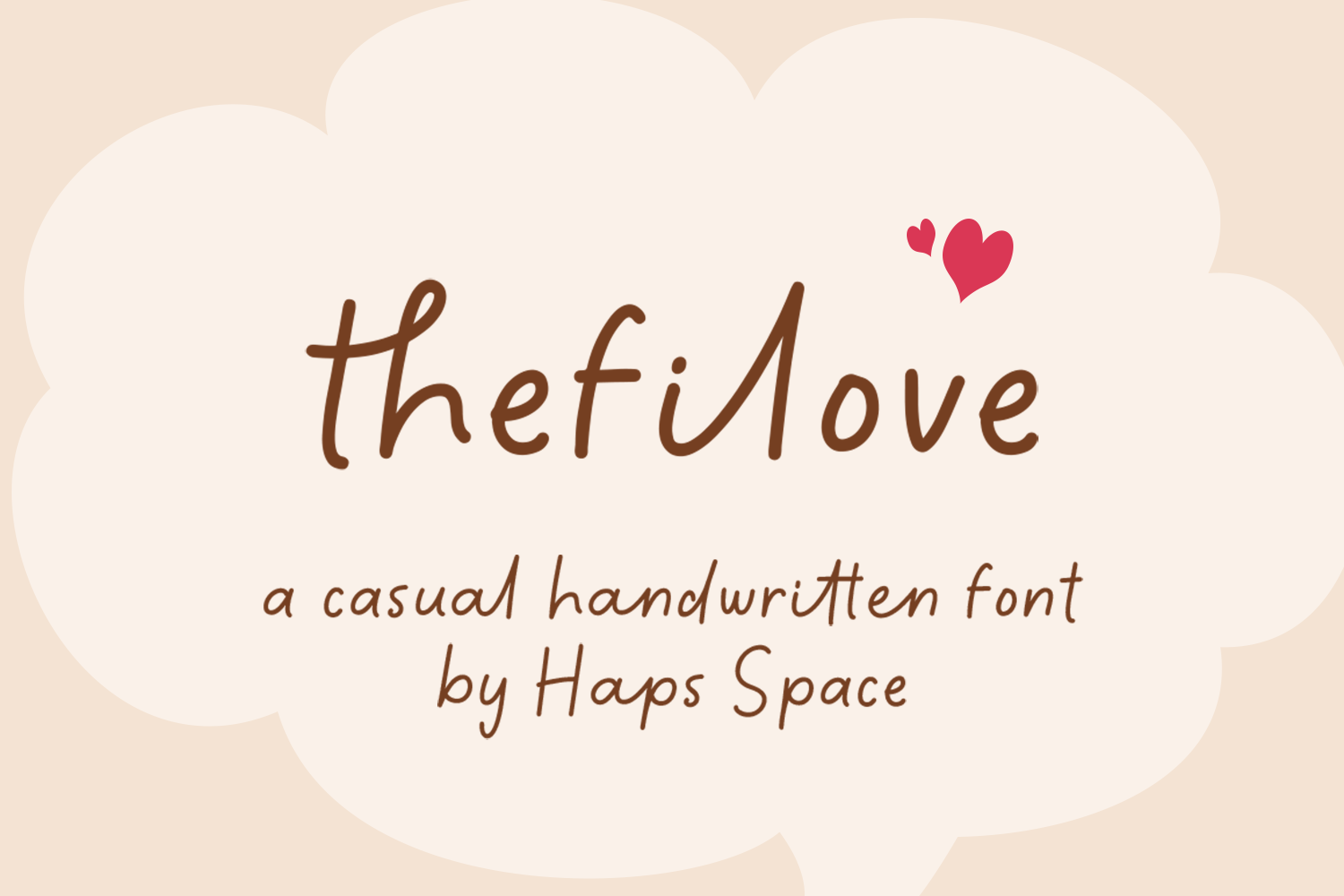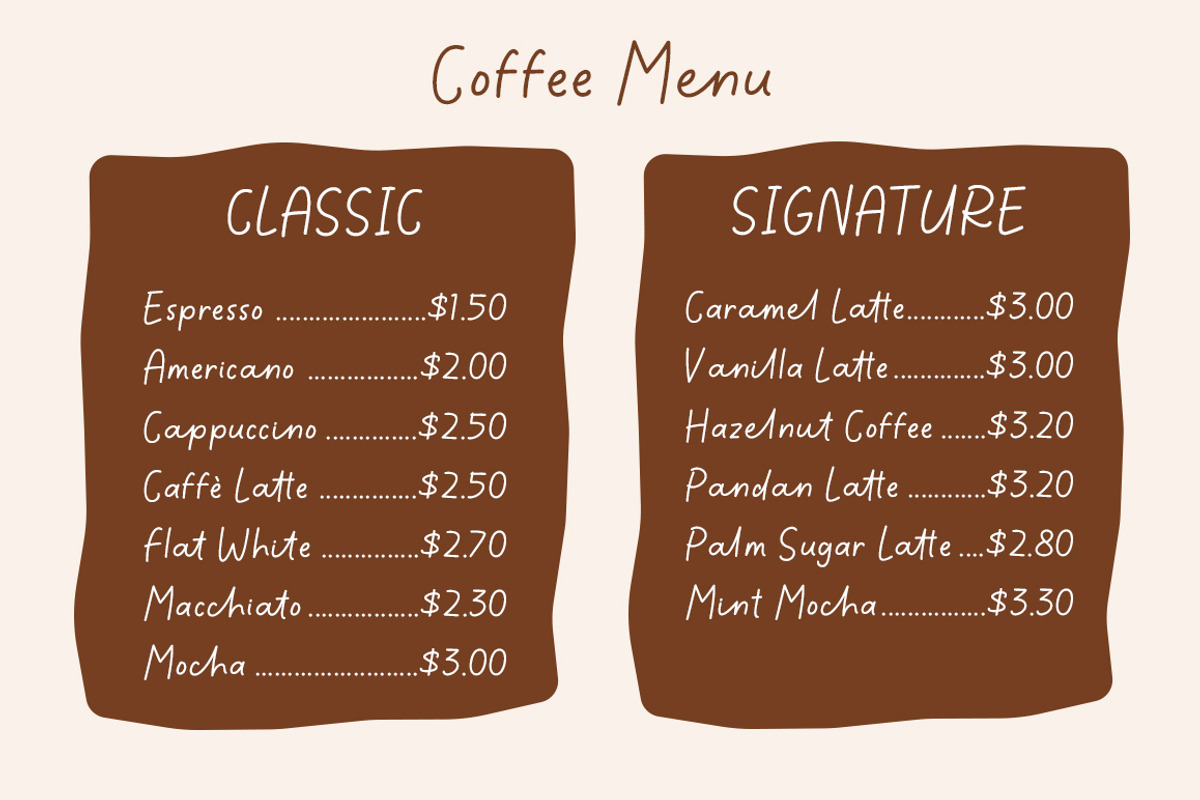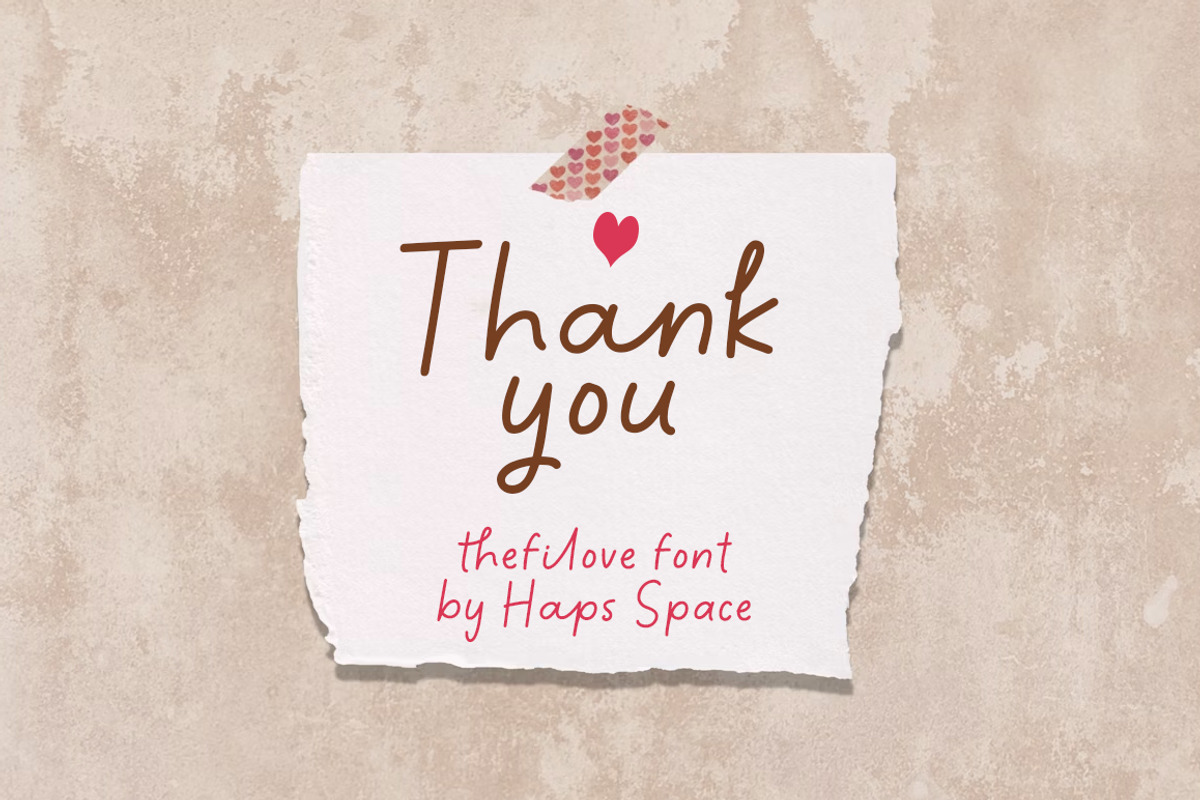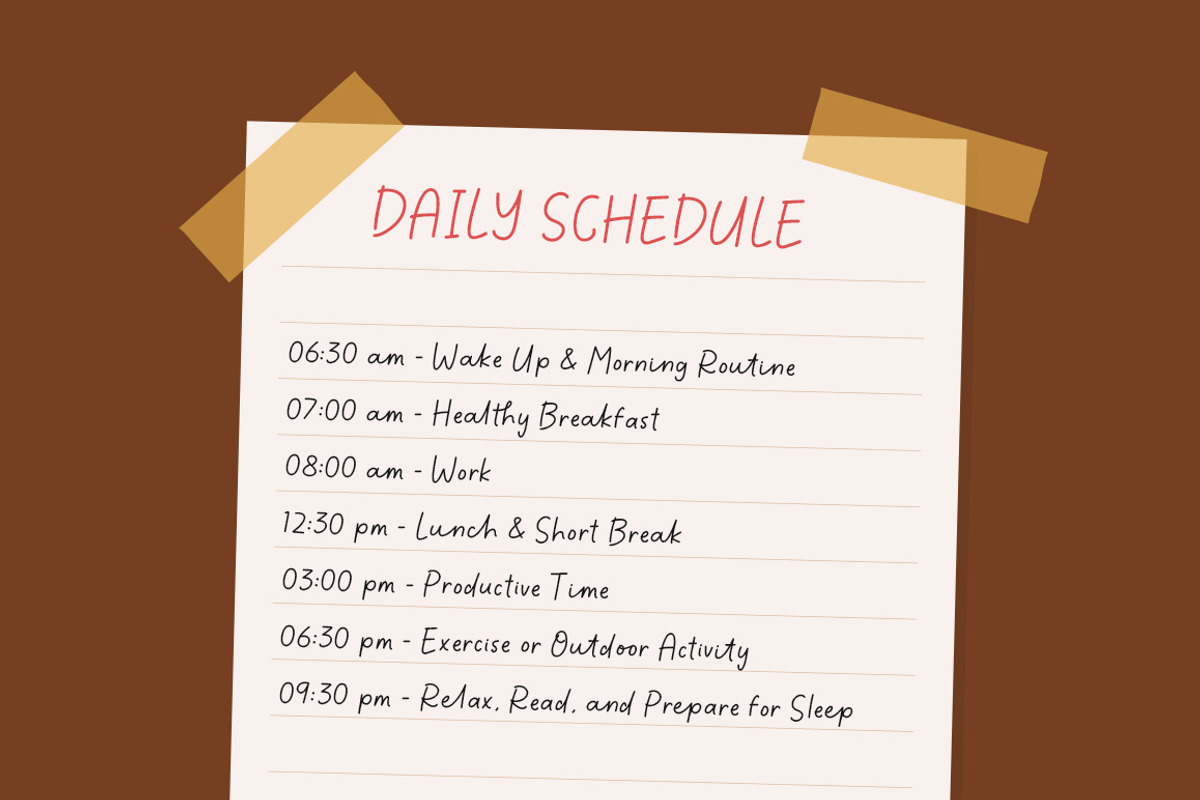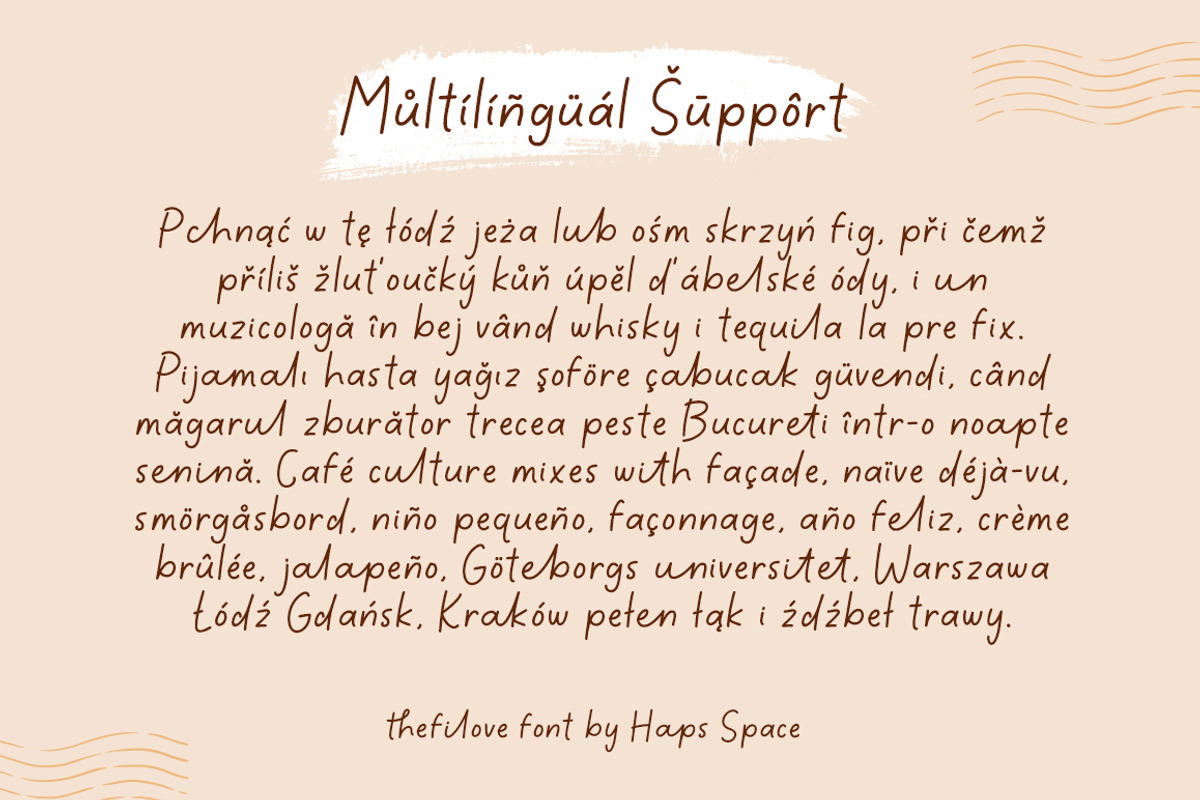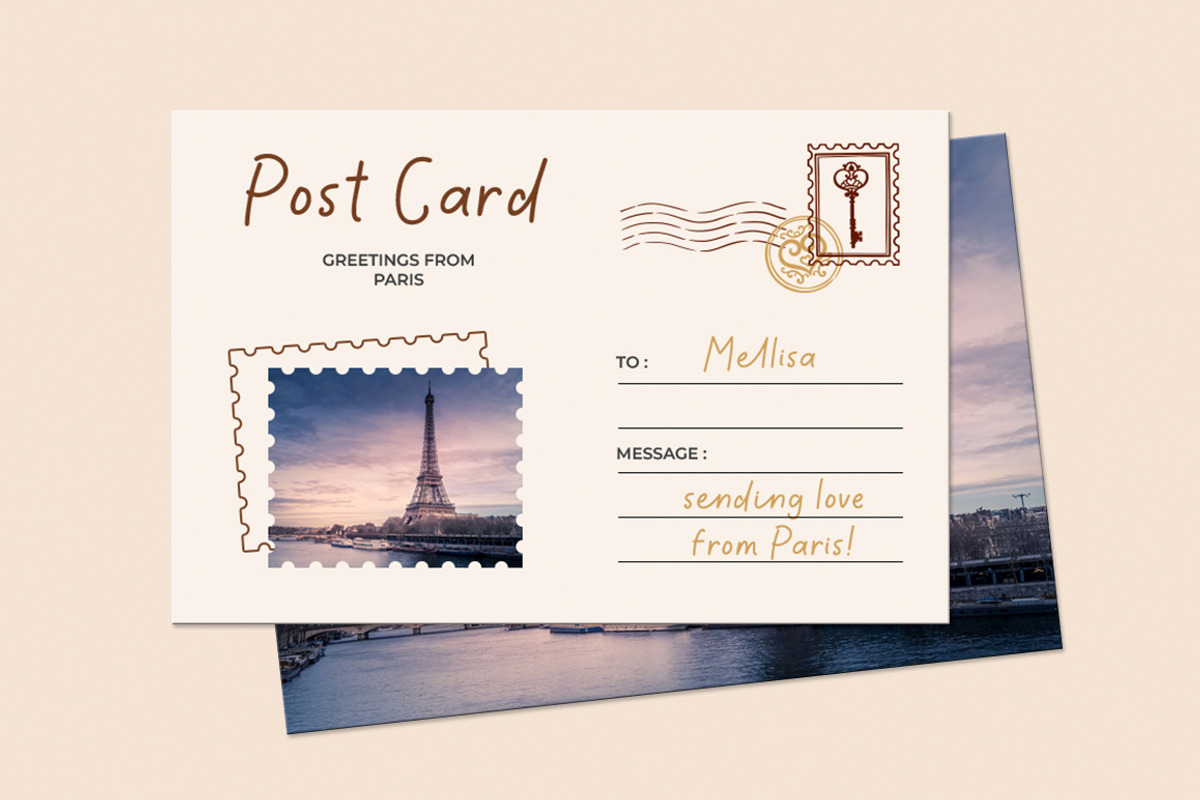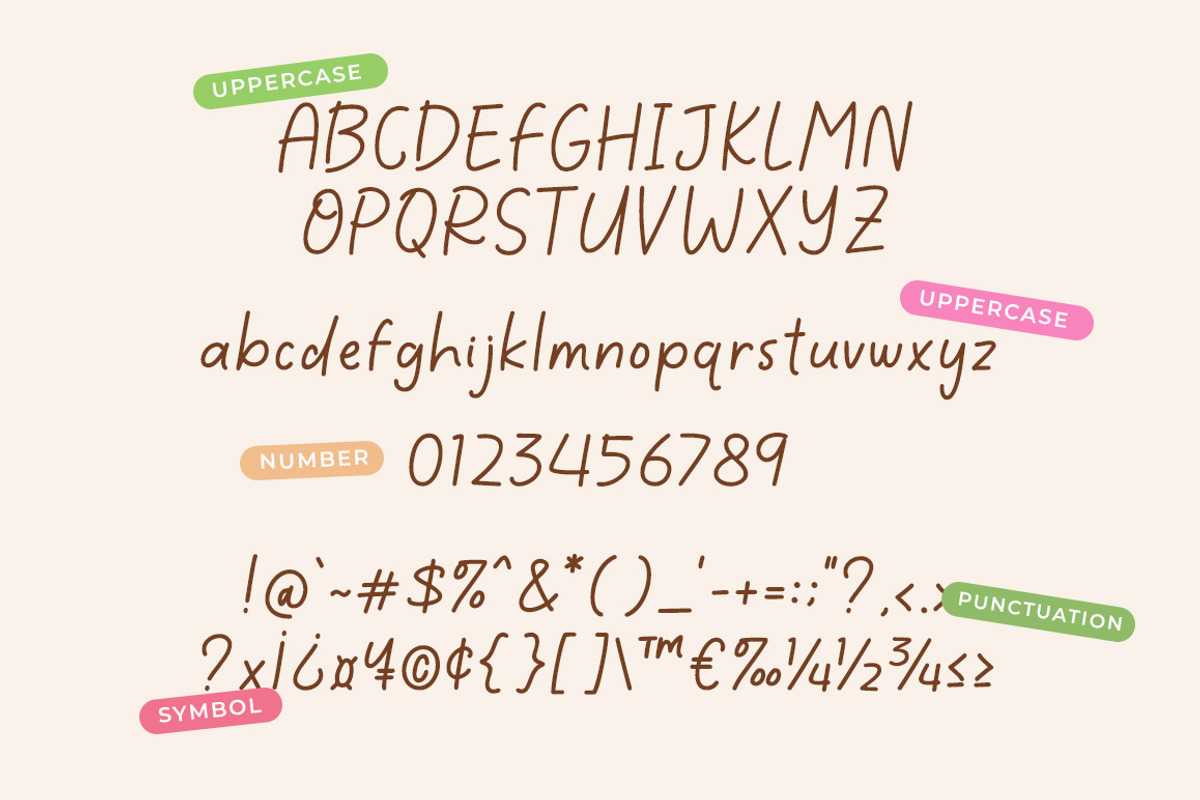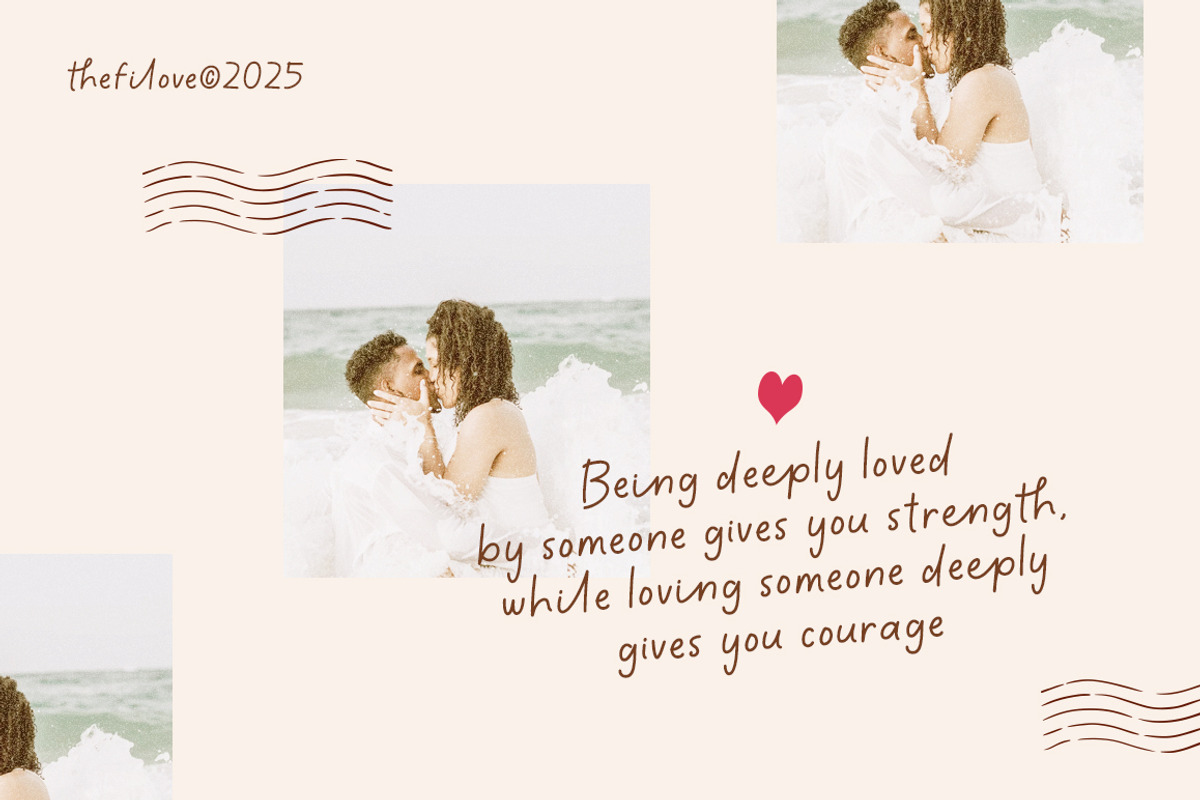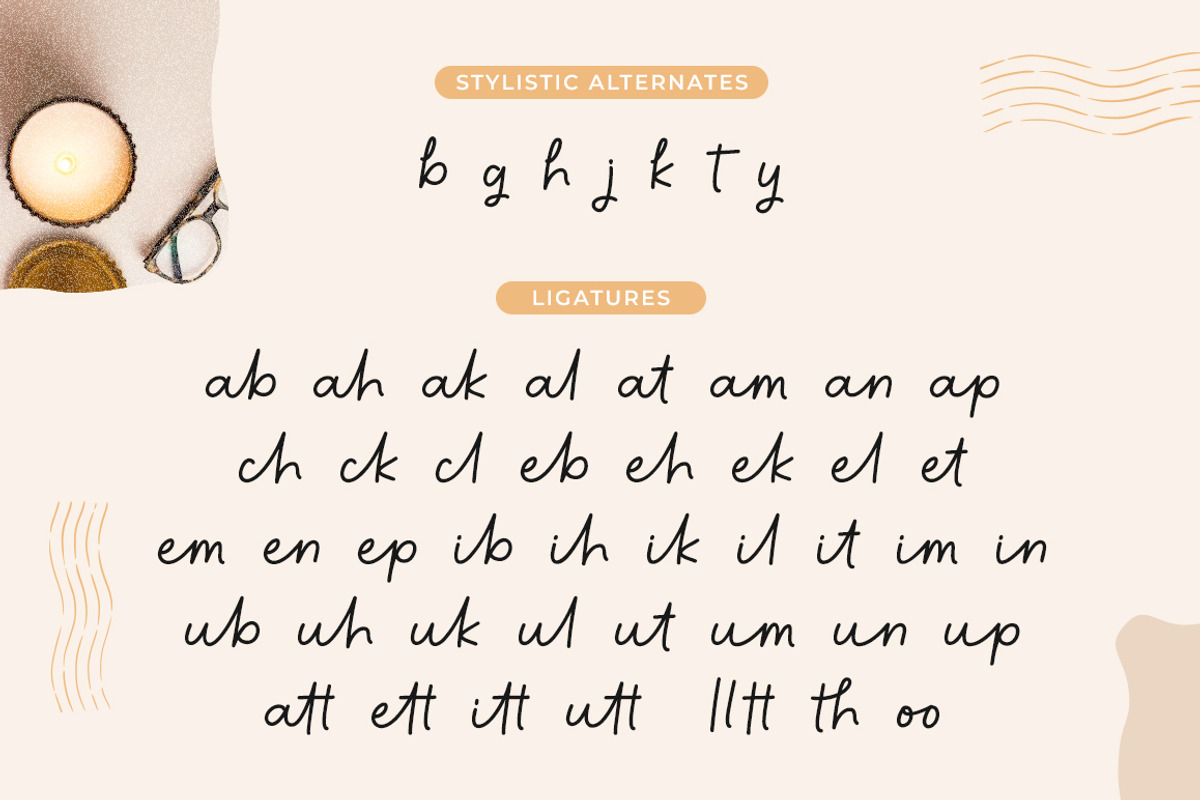
thefiLove Casual Handwritten Font
thefiLove is a casual handwritten font that brings warmth and charm to your designs. With smooth strokes and playful details, this font is perfect for invitations, greeting cards, quotes, logos, branding, and social media posts. Its friendly handwritten style makes it versatile for both personal and professional projects, adding a touch of love and personality to every word.
- Unique Letterforms